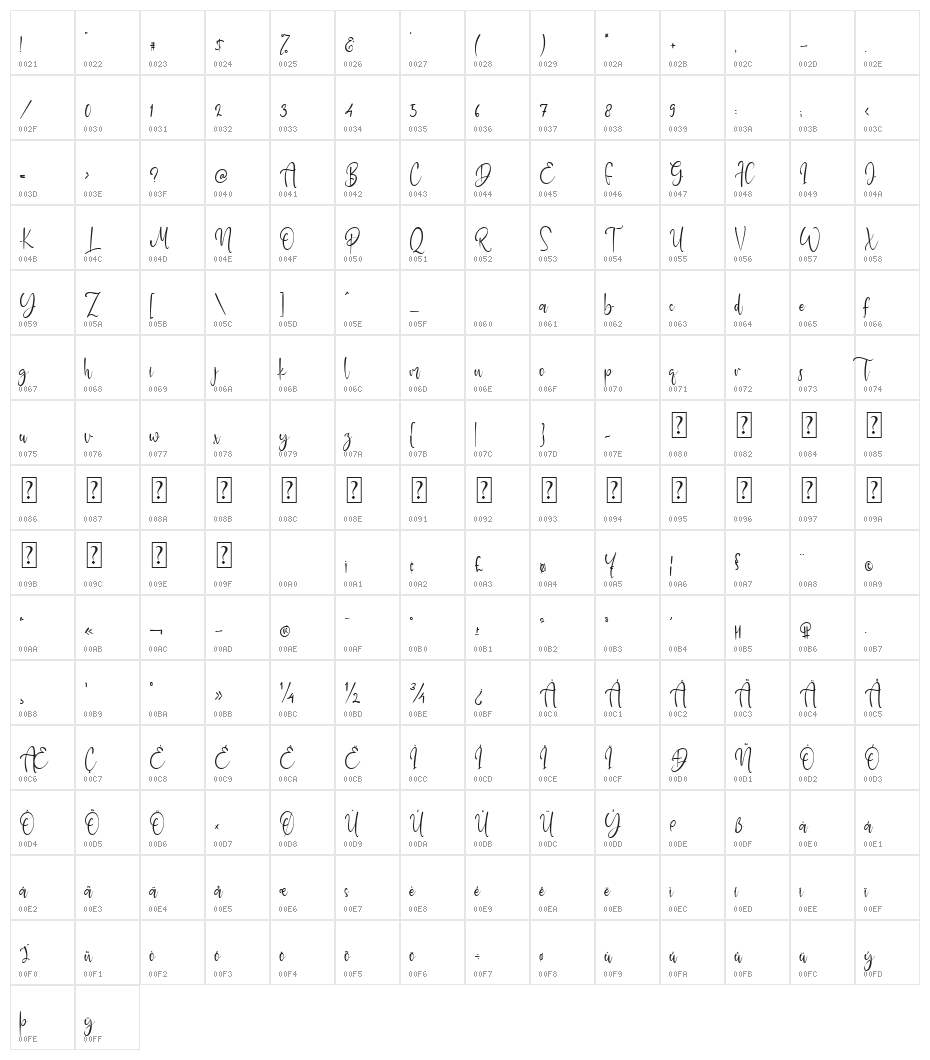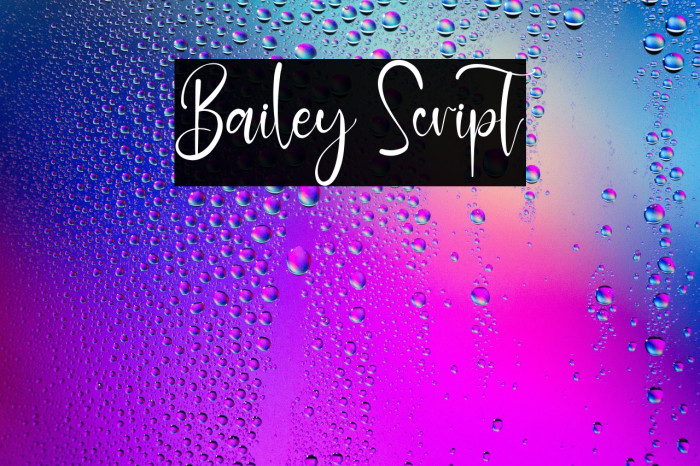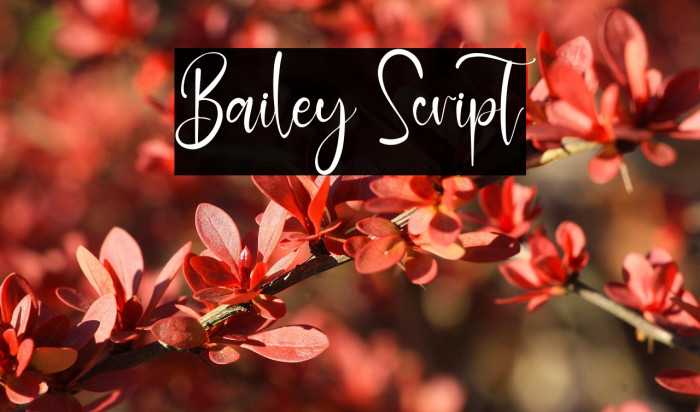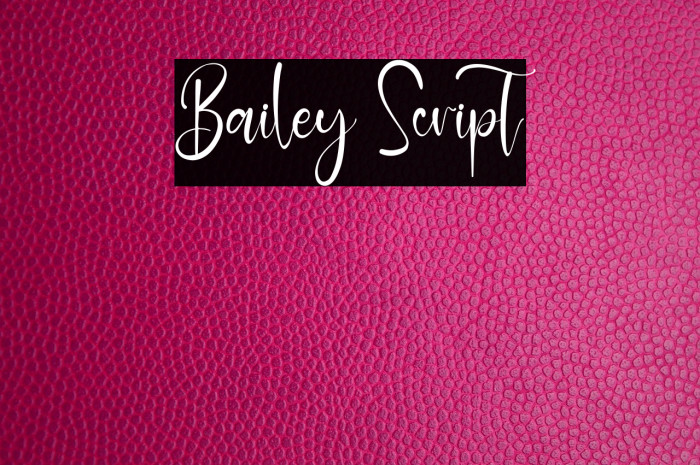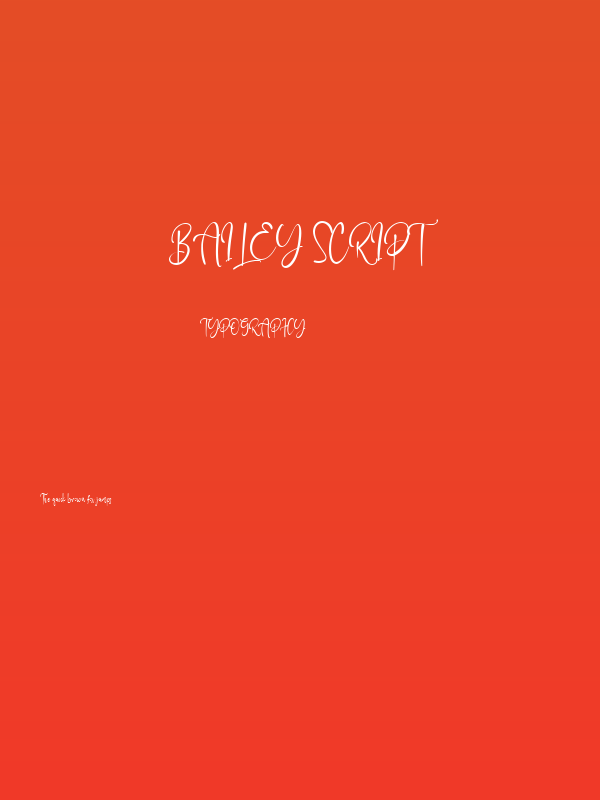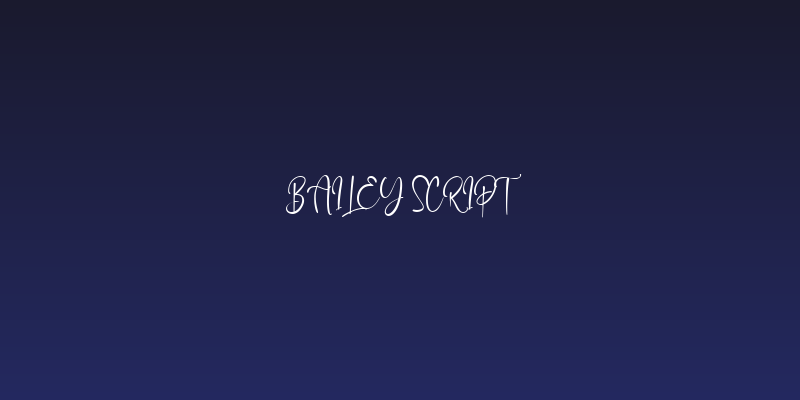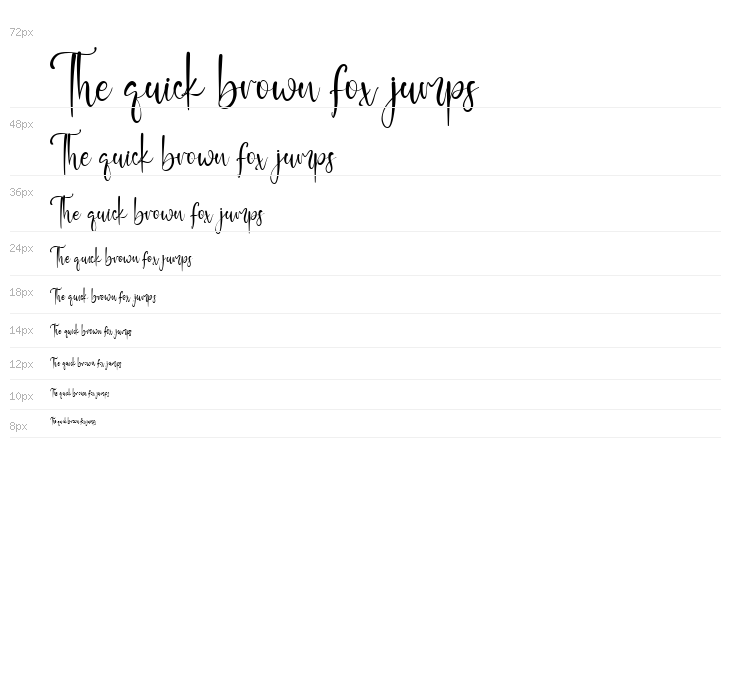
Bailey Script Font
Bailey Script Description
This elegant script font features a flowing, cursive style with intricate loops and swashes, giving it a sophisticated and artistic appearance. The uppercase letters are bold and decorative, with unique flourishes that add a touch of elegance. The lowercase letters maintain a consistent flow, enhancing readability while preserving the font's artistic flair. Numbers and special characters are designed to match the overall style, ensuring a cohesive look across all text elements. This font is ideal for projects that require a personal, handwritten touch, such as invitations, greeting cards, and branding materials.
| Overall Style | Elegant, Artistic |
| Use Case | Headlines, Invitations, Branding |
| Proposed Projects | Ideal for wedding invitations, greeting cards, branding, and artistic projects. |